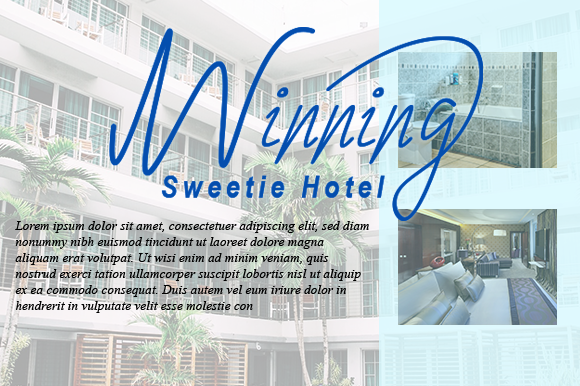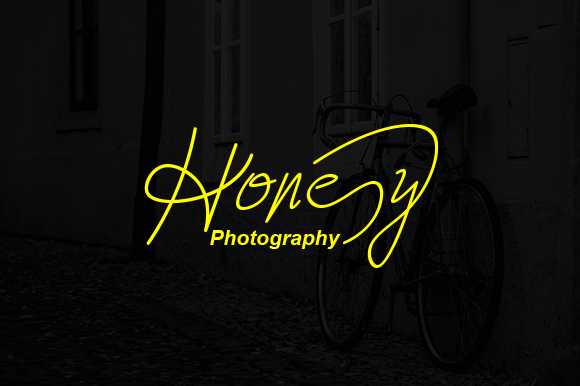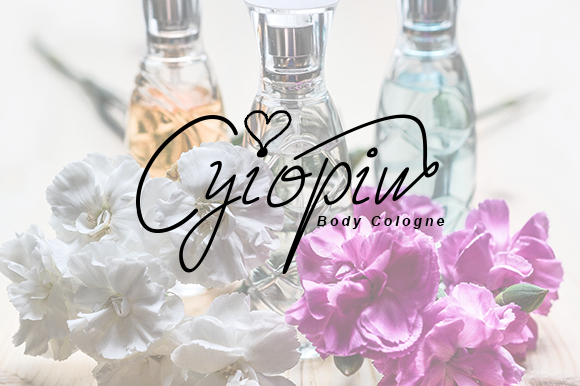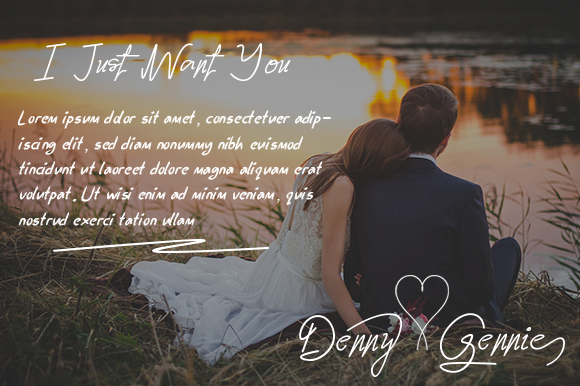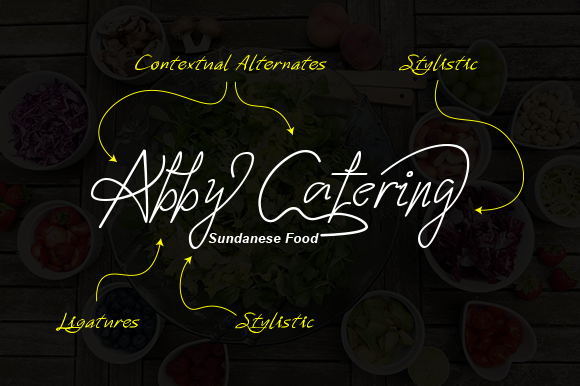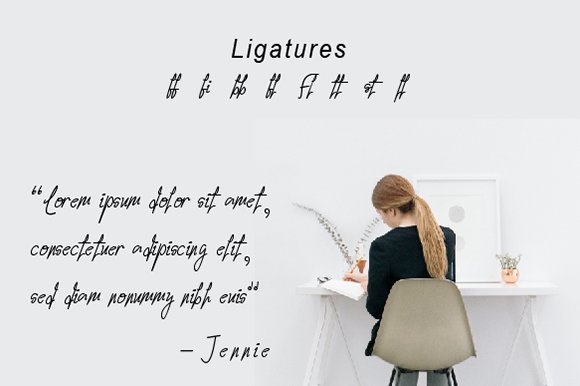
The Designer’s Delight: A Deep Dive into Damas Font
I’ll never forget the time I was working on a project for a client who wanted a font that was both elegant and playful. I spent hours scouring the internet for the perfect match, but nothing seemed quite right. That was until I stumbled upon Damas Font. This beautiful, charming handwritten font has a small feel that’s perfect for designs that need a touch of whimsy. In this article, I’ll share my experience with Damas Font, its features, and how to make the most of it in your designs.
An Honest Review of Damas Font
So, what makes Damas Font so special? Let’s take a closer look.
What I Love About Damas Font
- ✨ Unique Character: Damas Font has a distinct personality that’s hard to find in other fonts. Its handwritten feel makes it perfect for designs that need a personal touch.
- ✅ Versatility: This font is incredibly versatile and can be used for a wide range of projects, from branding and packaging to social media graphics and invitations.
- 💫 Legibility: Despite its small feel, Damas Font is surprisingly legible, even at smaller sizes.
While Damas Font is an excellent choice for many projects, there are a few things to keep in mind:
- 🤔 Limited Use in Long-Form Text: While Damas Font is great for short bursts of text, it may not be the best choice for long-form content. Its small feel can make it difficult to read in large blocks of text.
- ⚠️ Requires Careful Pairing: Damas Font can be a bit finicky when paired with other fonts. It’s essential to choose a font that complements its unique character.
- Take advantage of stylistic alternates and swashes to add more personality to your designs.
The Story Behind Damas Font
Damas Font was created by a talented designer who wanted to capture the essence of handwritten elegance. Inspired by traditional calligraphy, Damas Font brings a touch of sophistication to any design project. While the designer’s exact story is shrouded in mystery, it’s clear that Damas Font was created with love and attention to detail.
| Font Name | Damas Font |
| Author | damasyp |
| What is Damas Font best used for? | Damas Font is perfect for designs that need a touch of elegance and whimsy, such as branding, packaging, and social media graphics. |
| Is Damas Font legible? | Yes, Damas Font is surprisingly legible, even at smaller sizes. |